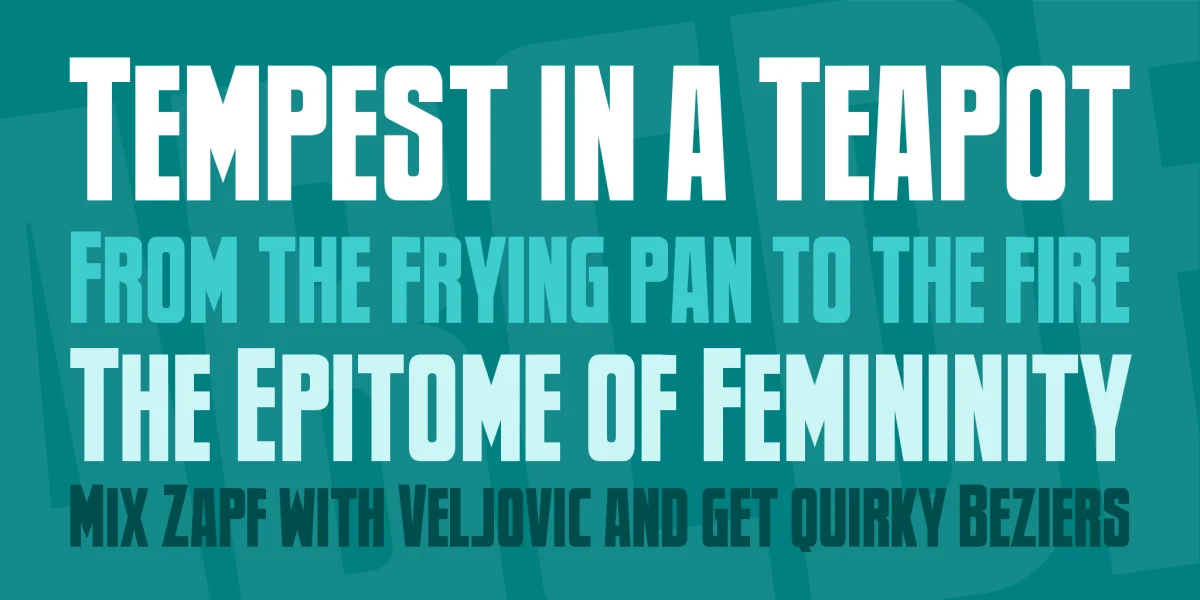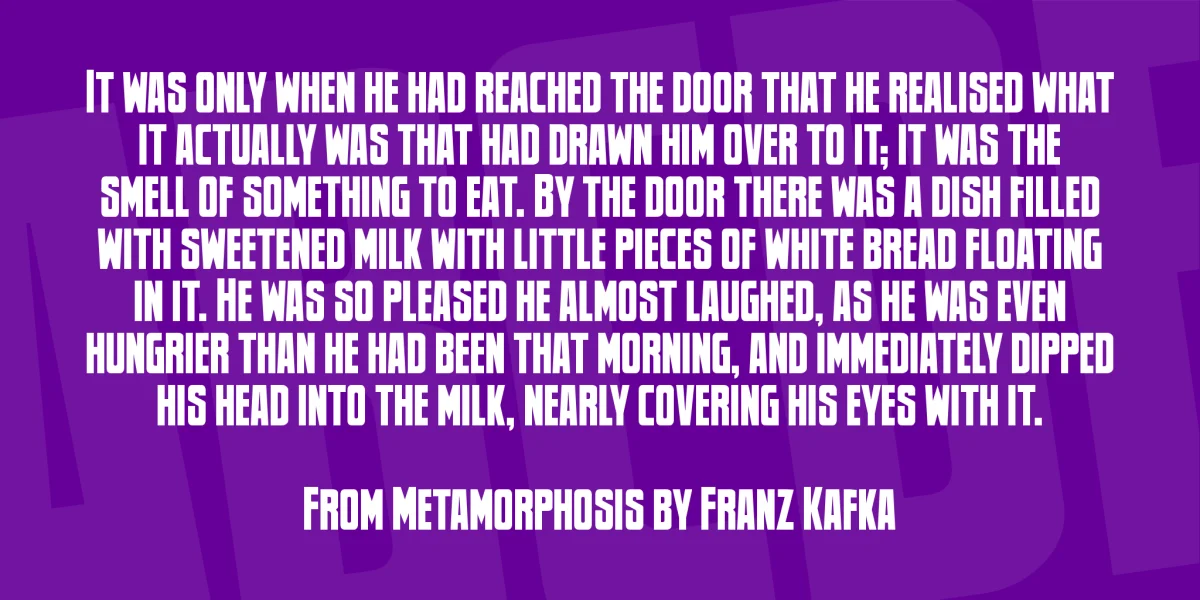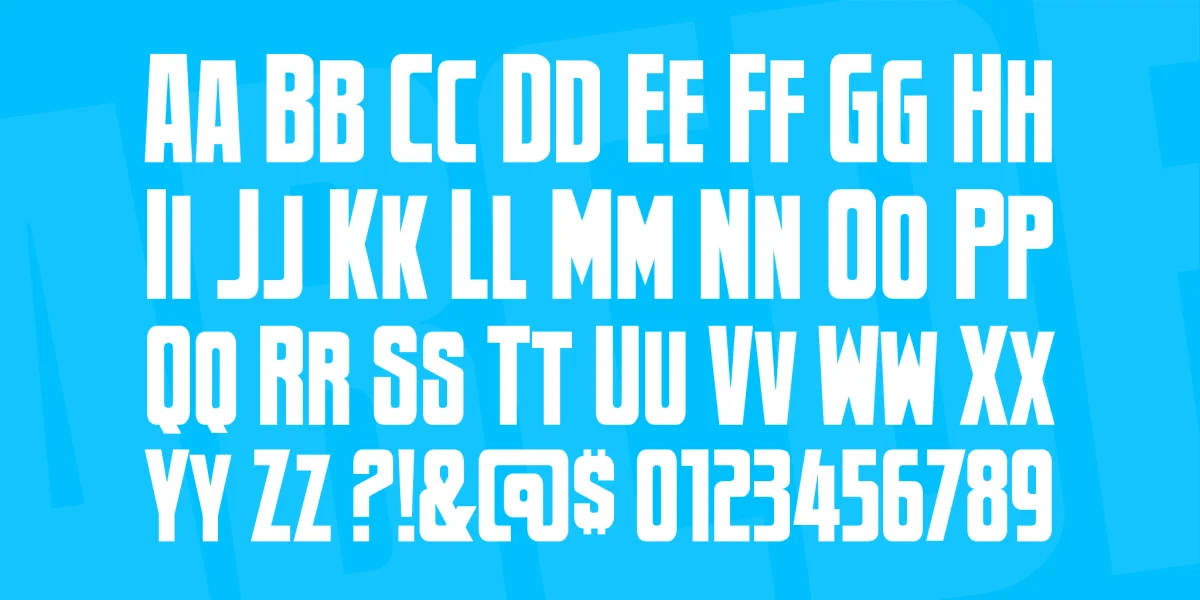
NewsFlash is a block title font straight out of the hayday of comicdom! Perfect for old school newspaper headlines or super hero title graphics! AND (drumroll please…) NewsFlash is the first free font on Blambot to be offered in Opentype format. ALL Blambot fonts from here on out will be offered as such!